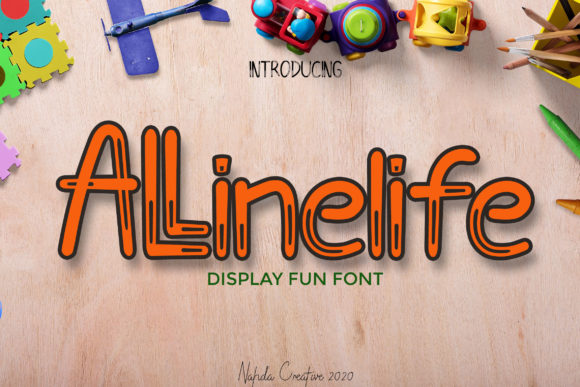
The Allinelife Font: A Fun and Versatile Display Font for Your Creative Projects
I still remember the design project that led me to discover the Allinelife font. I was working on a fun craft project for a client who wanted a playful, down-to-earth vibe. I had tried several fonts, but none seemed to capture the right tone. That was when I stumbled upon Allinelife, and it instantly clicked. Its casual charm and readability made it perfect for the project, and I’ve been a fan ever since.
An Honest Review of Allinelife Font
What I Love About Allinelife ✨
- ✅ Its casual, down-to-earth charm makes it perfect for a wide range of creative projects.
- ✅ The font is incredibly versatile and can be used on busy backgrounds or as a standalone headline.
- ✅ It’s highly readable, even at smaller sizes.
- ✅ The font has a fun, playful vibe that’s sure to grab attention.
- ⚠️ Some users may find the font a bit too casual for certain projects, such as luxury brands or formal events.
- ⚠️ The font may not be suitable for body text, as it’s designed primarily for display purposes.
The Backstory Behind Allinelife
Allinelife was designed with the goal of creating a fun, versatile display font that could be used in a wide range of creative projects. The designer wanted to create a font that was both playful and readable, with a unique personality that would stand out in any context. The result is a font that’s perfect for designers, crafters, and creative hobbyists who want to add a touch of whimsy to their work.
Q: What type of projects is Allinelife best suited for?
A: Allinelife is perfect for creative projects that require a fun, playful vibe, such as craft projects, social media graphics, and party invitations.
Q: Does Allinelife support OpenType features?
A: Yes, Allinelife supports OpenType features, including glyphs and stylistic alternates. Experiment with these features to add more personality to your text.